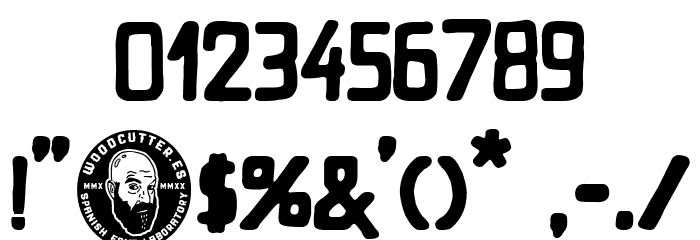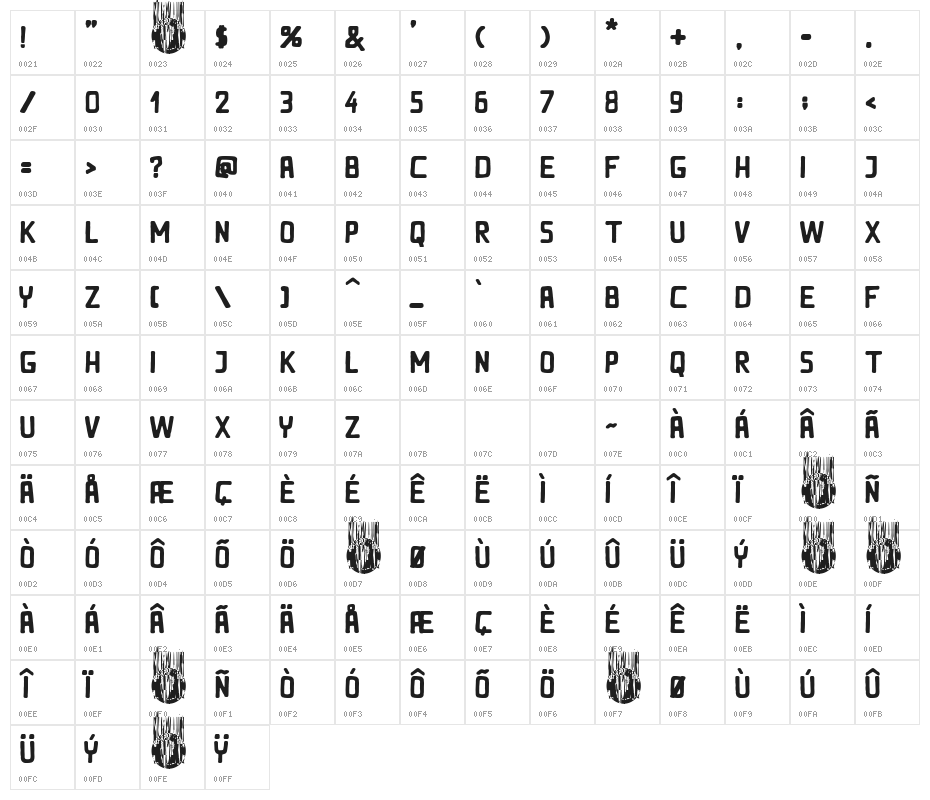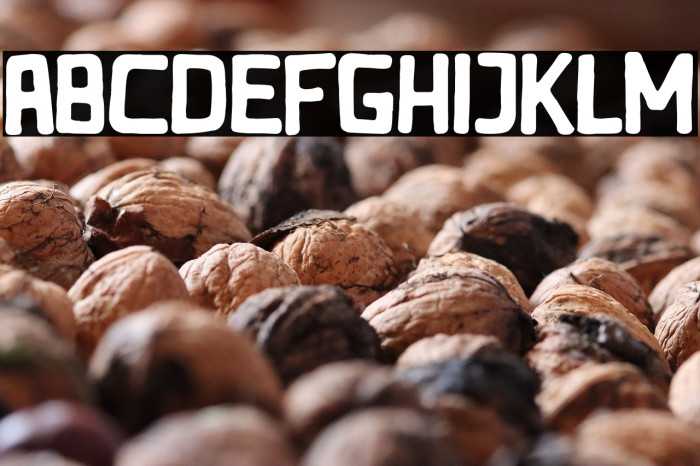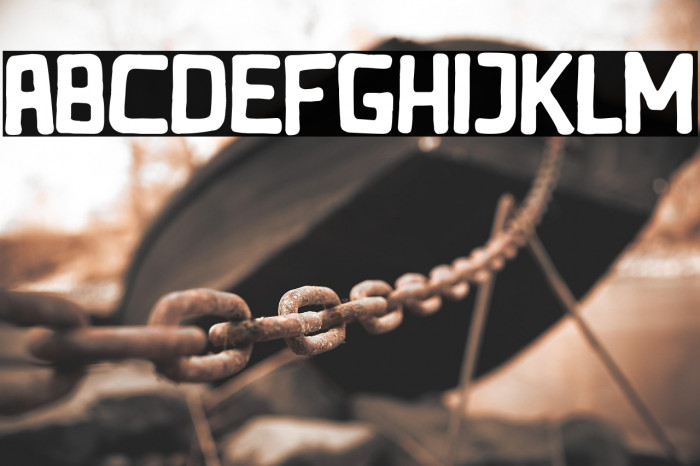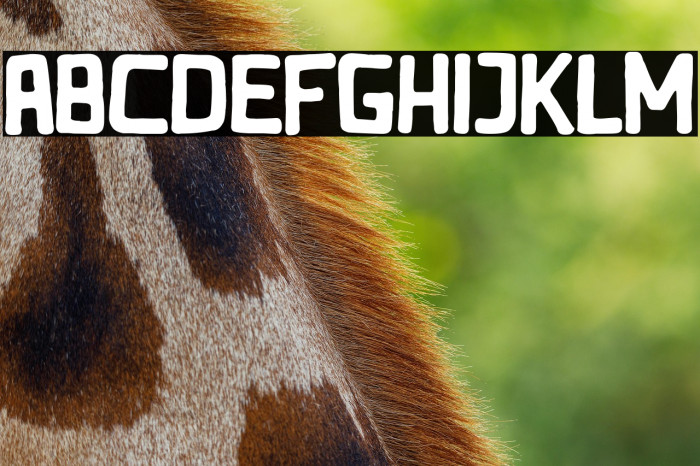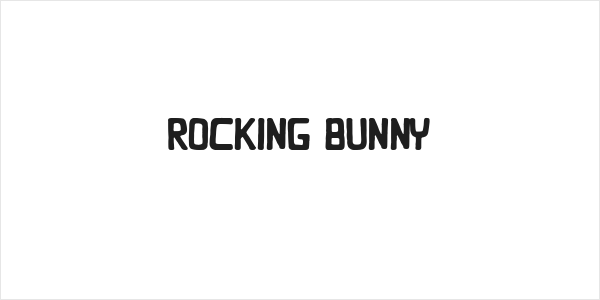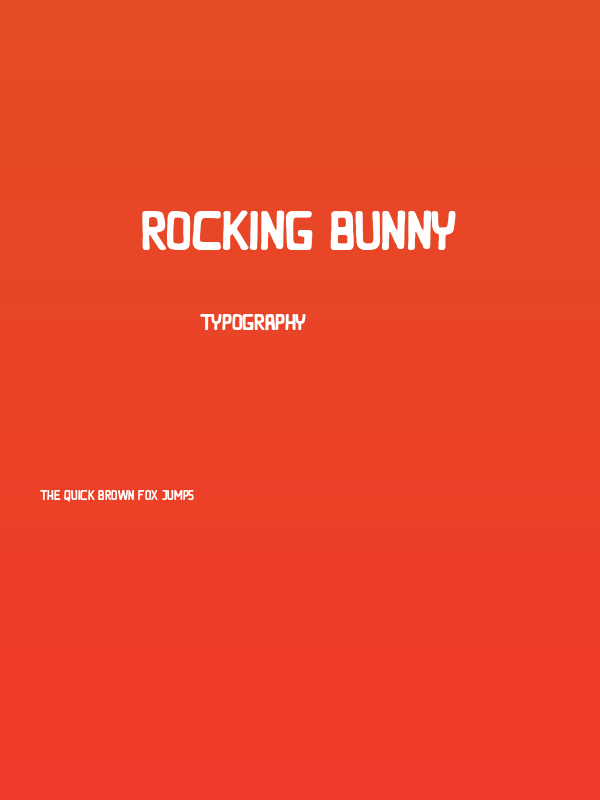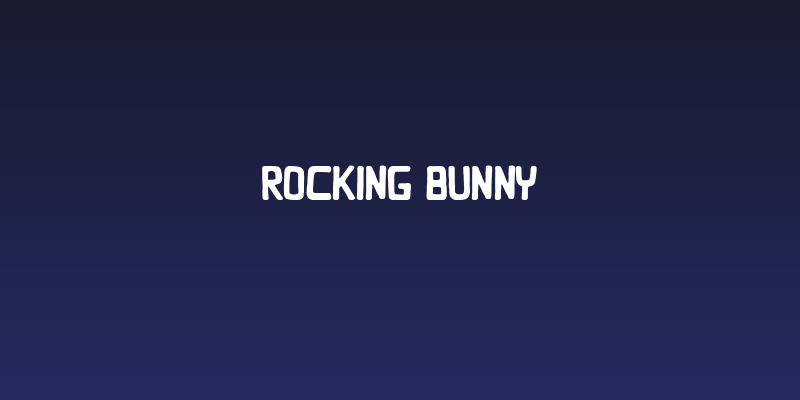
Rocking Bunny Font
Rocking Bunny Description
This font features a bold and playful design with rounded edges and a hand-drawn aesthetic. The characters are slightly irregular, giving it a casual and friendly appearance. The uppercase and lowercase letters maintain a consistent style, with a slight variation in stroke width that adds to its charm. Numbers and special characters are designed to match the playful theme, making it suitable for creative and informal projects. The overall look is approachable and fun, perfect for designs that aim to convey a sense of whimsy and creativity.
| Overall Style | Playful, Hand-drawn |
| Proposed Projects | Ideal for children's books, playful branding, posters, and creative invitations. |